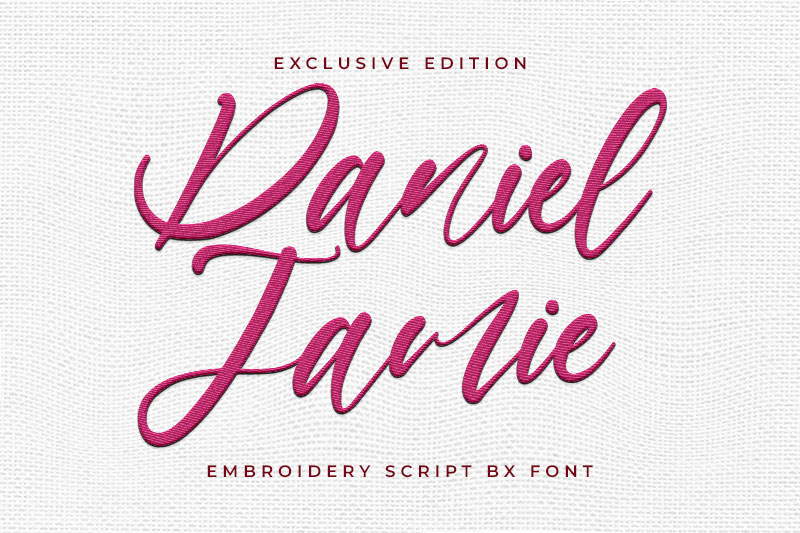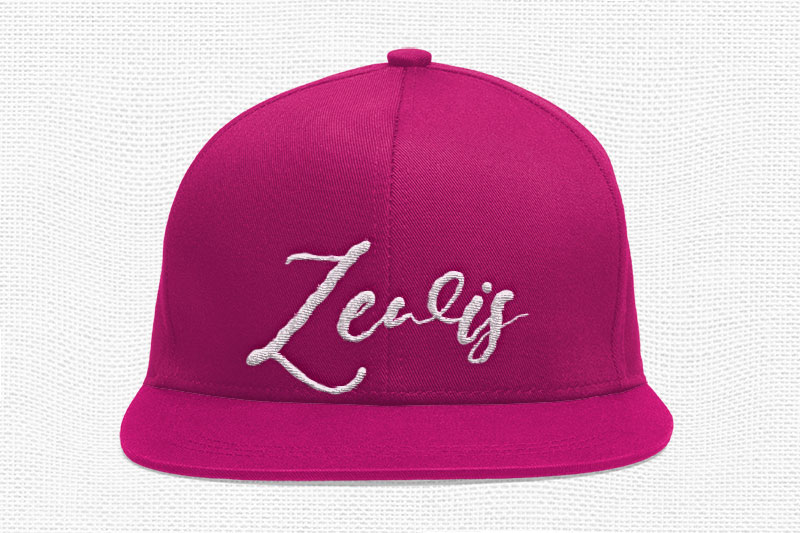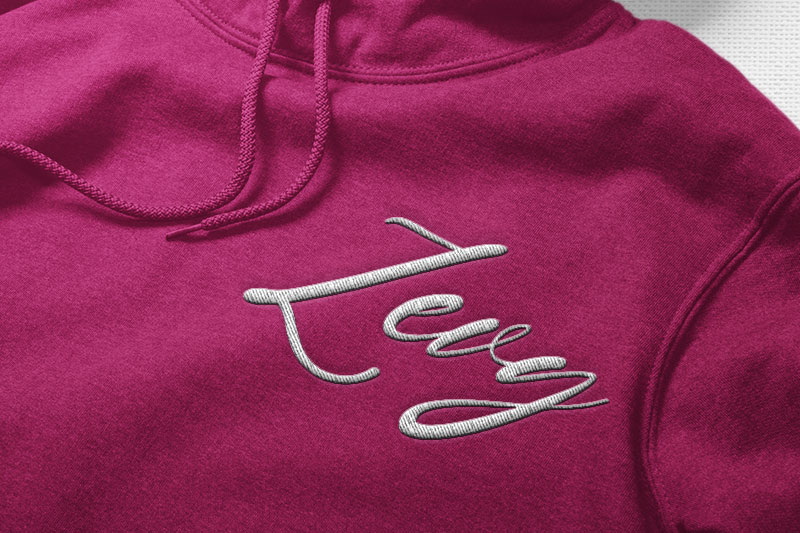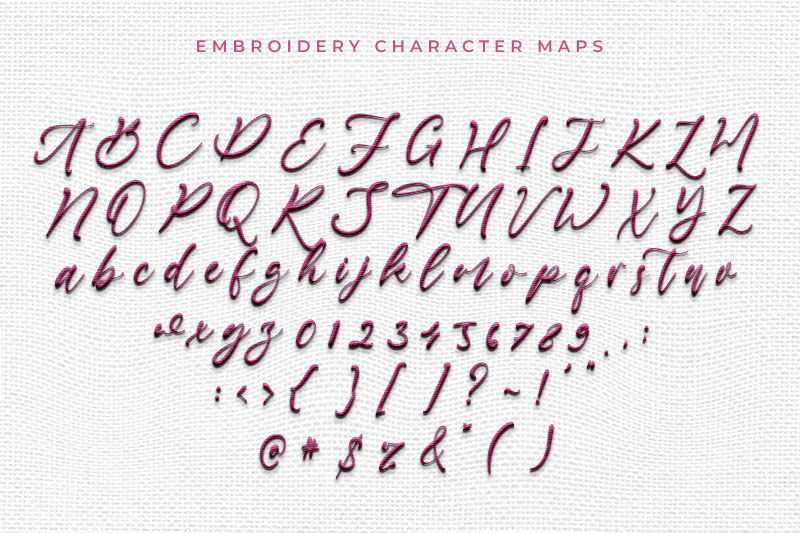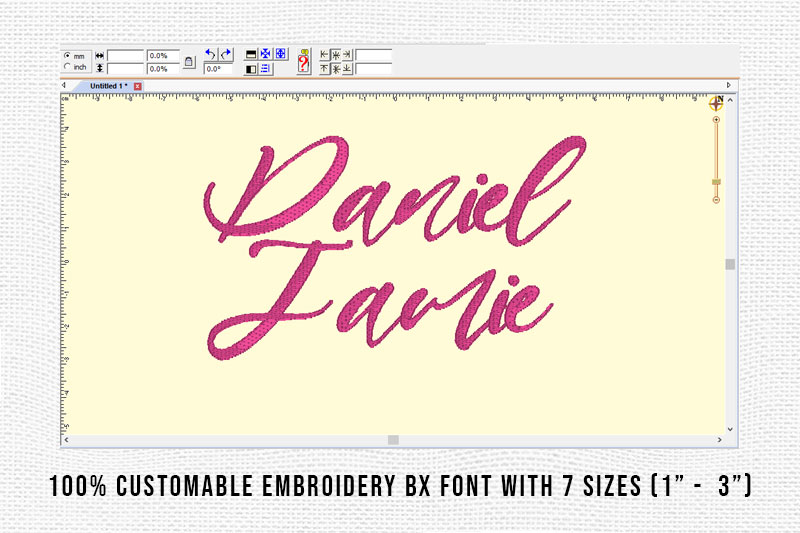
The Kong font is back with a new type of embroidery font. Daniel Jamie Embroidery Font was created to increase the variety of options available to Embroidery font users. Of course, this is an advantage for you, because the font you use will not be monotonous. The Kong font provides two types of Daniel Jamie Embroidery Font, Embroidery font, and digital fonts. It can be used as embroidery on various items and can also be used as a complement to various digital containers.
Daniel Jamie Embroidery Font has characteristics quite to distinguish between letters. It can be said that this font is included in the illegible font because based on the characteristics that call it unique, it can be concluded that. However, this still carries the impression that is usually attached to embroidery fonts, namely elegant, beautiful, and modern.
Given the exciting characteristics it has created, Daniel Jamie Embroidery Font is one of the best fonts to use on hats, T-shirts, jackets, and hoodies. In addition, this digital font is suitable to be combined with several of your products, such as brand tags, magazine covers, etc. Font Kong provides Embroidery font for digital and print use. Both of them will not eliminate the element of cool and modernity posed by Daniel Jamie Embroidery Font.
We can digitally apply Daniel Jamie Embroidery Font to promote your product on social media or websites. This will show the modern and elegant impressions. This will attract interest and add to the impression of the reader of this font.